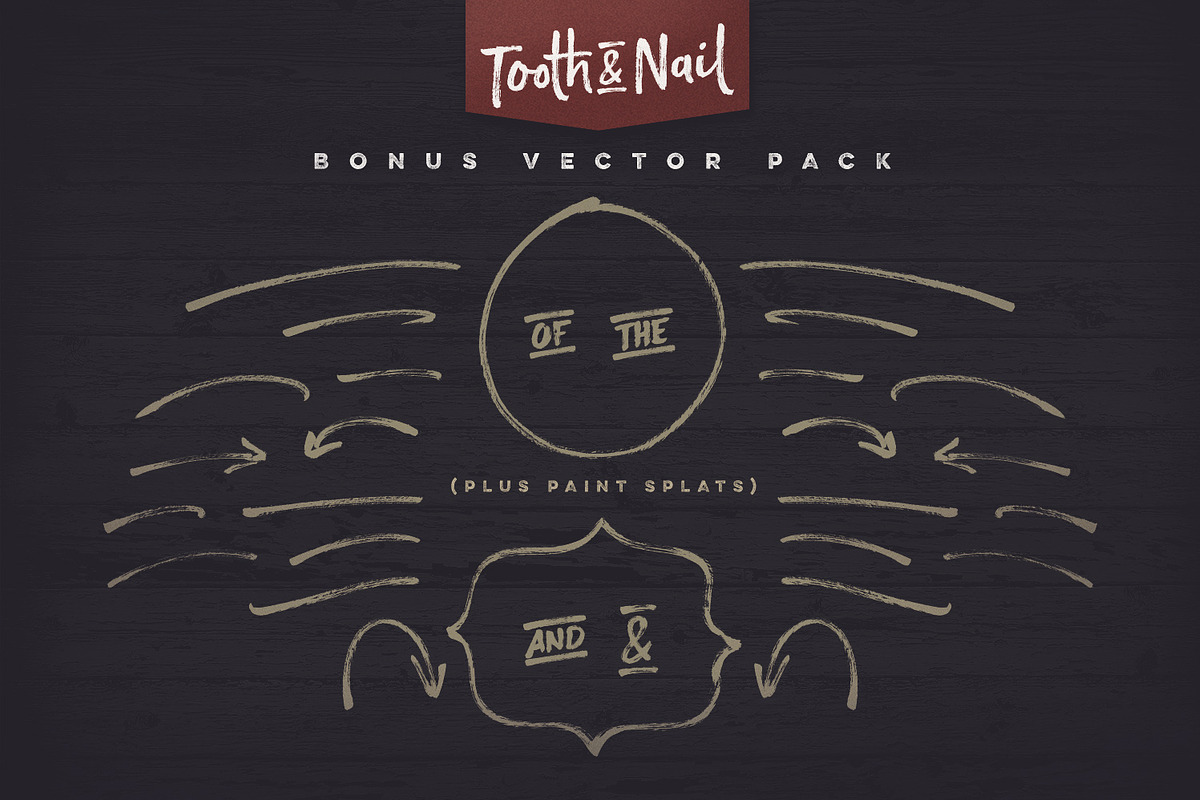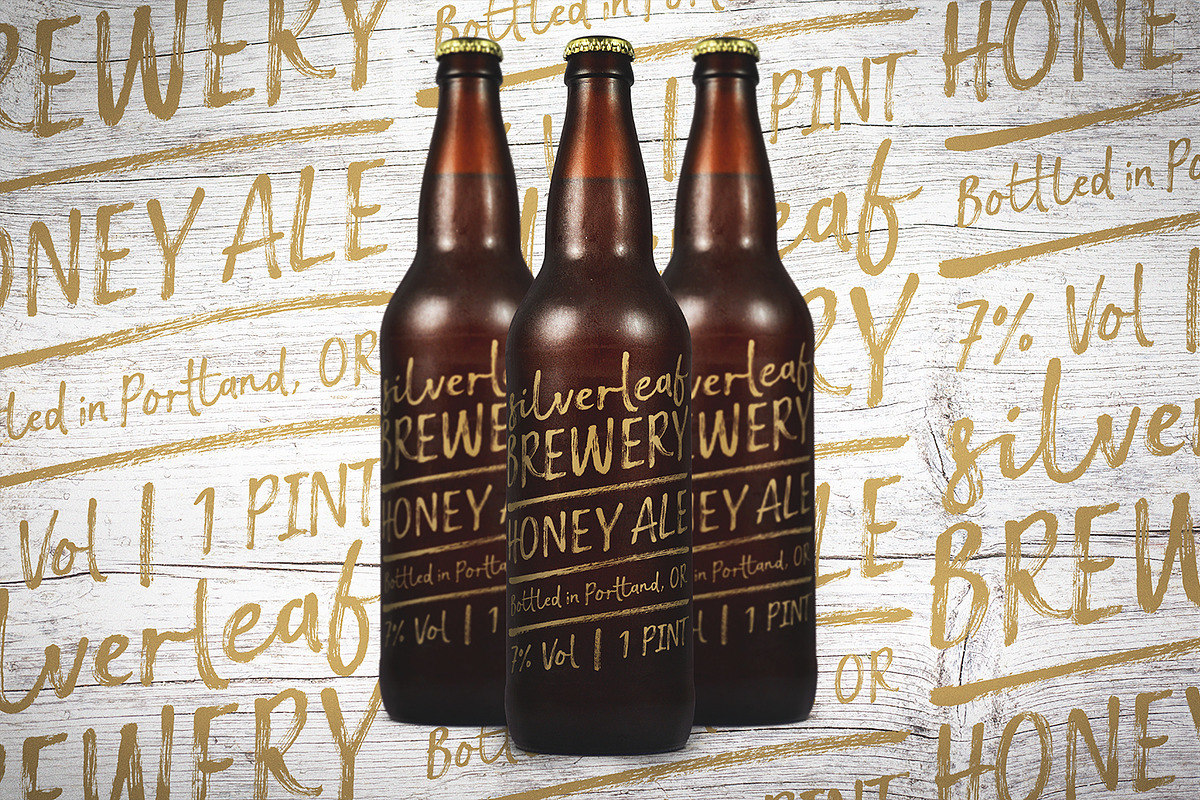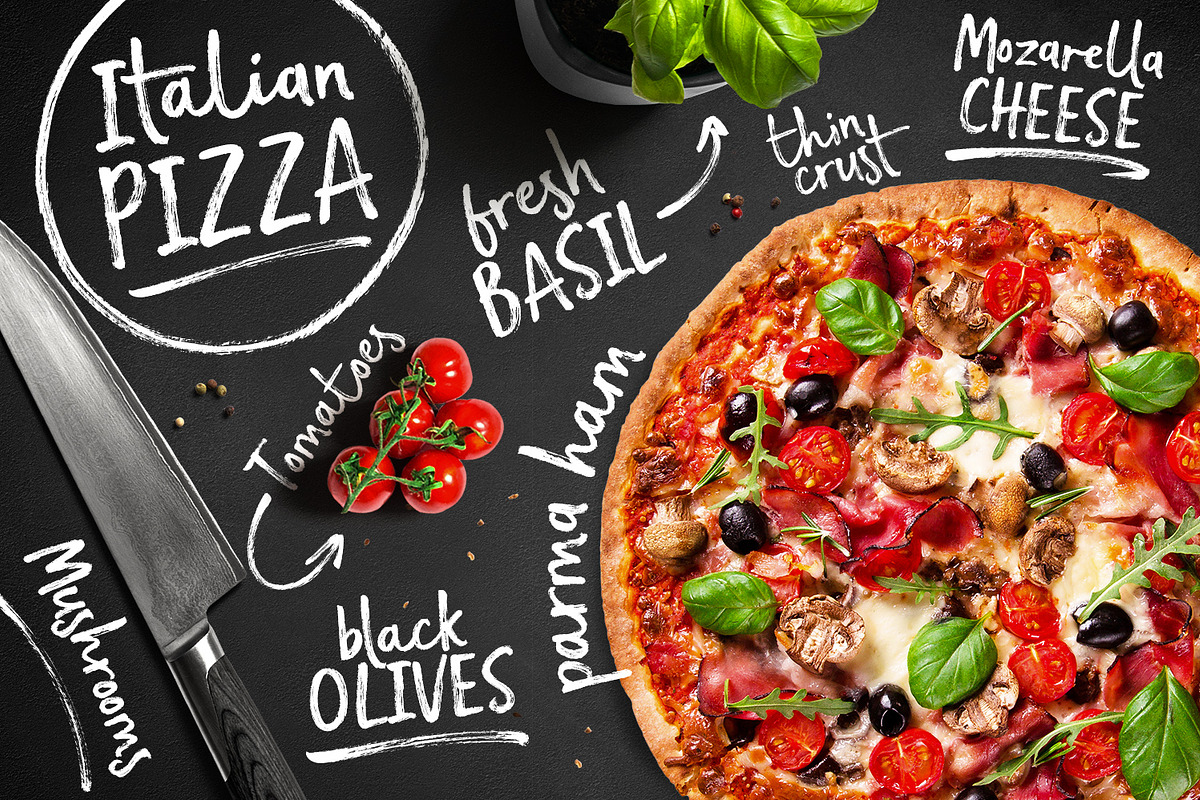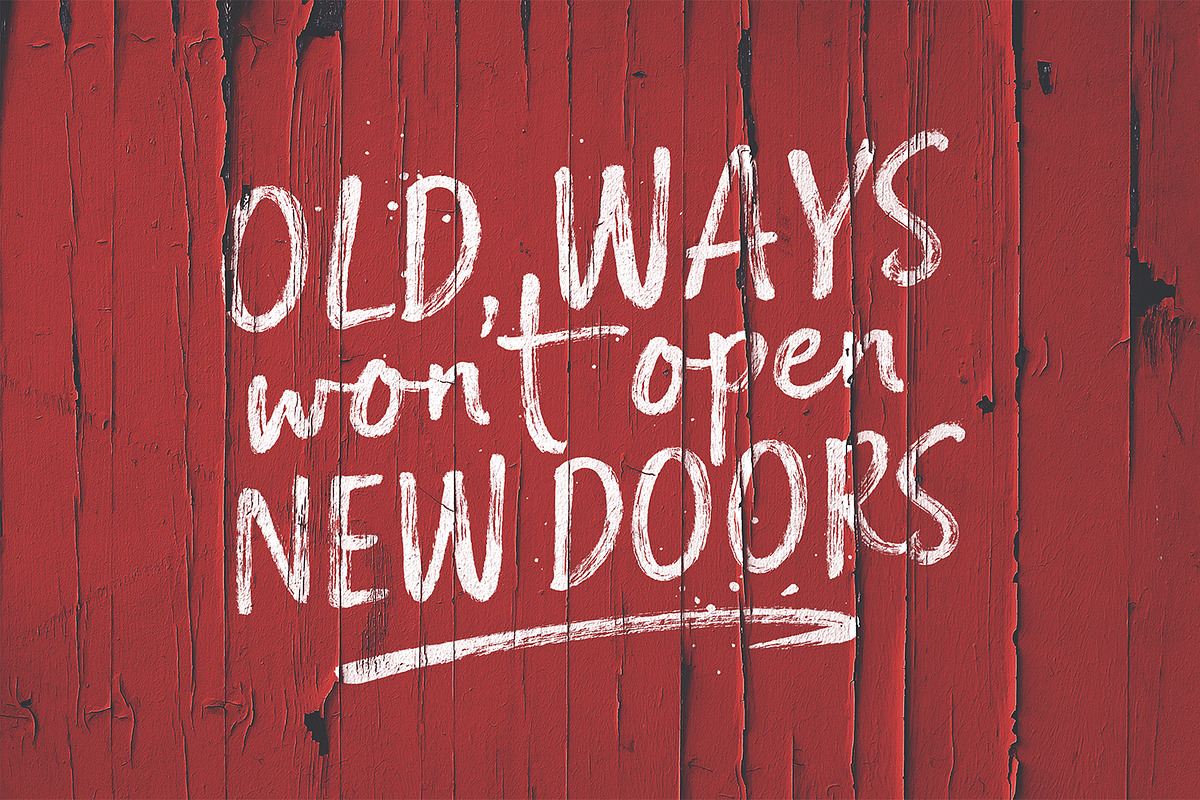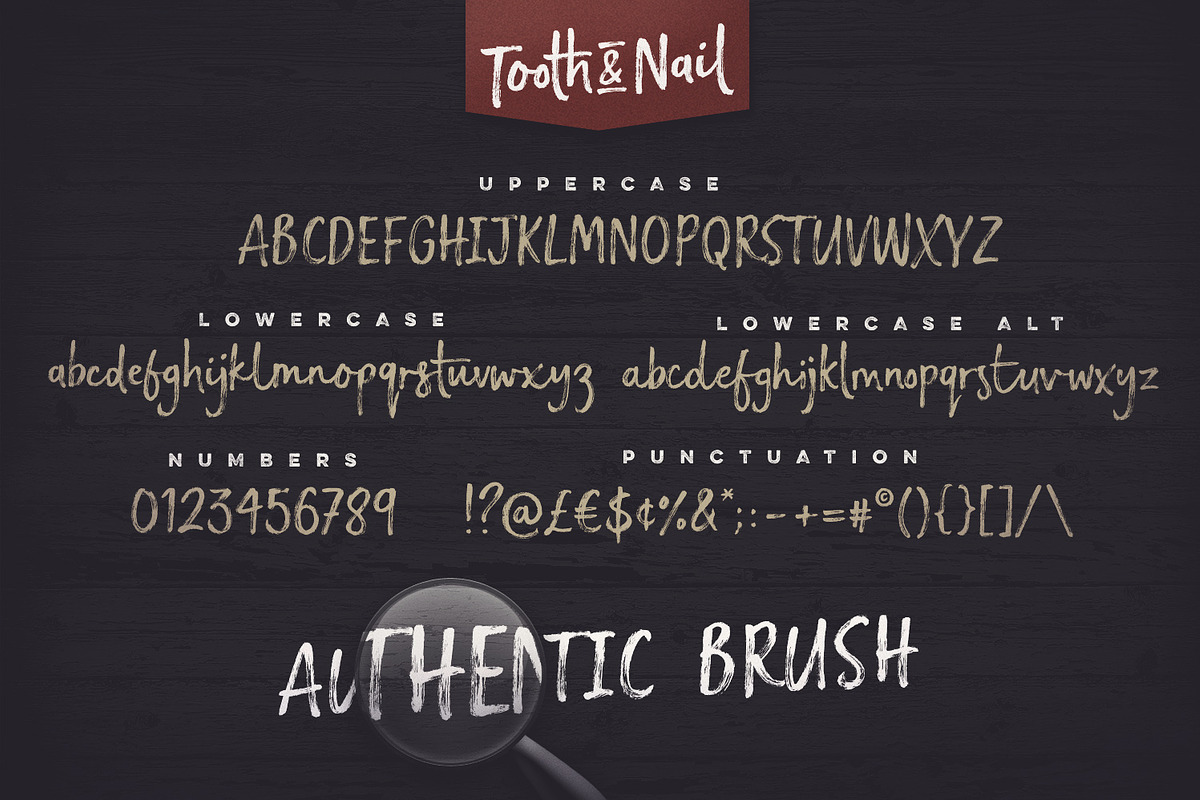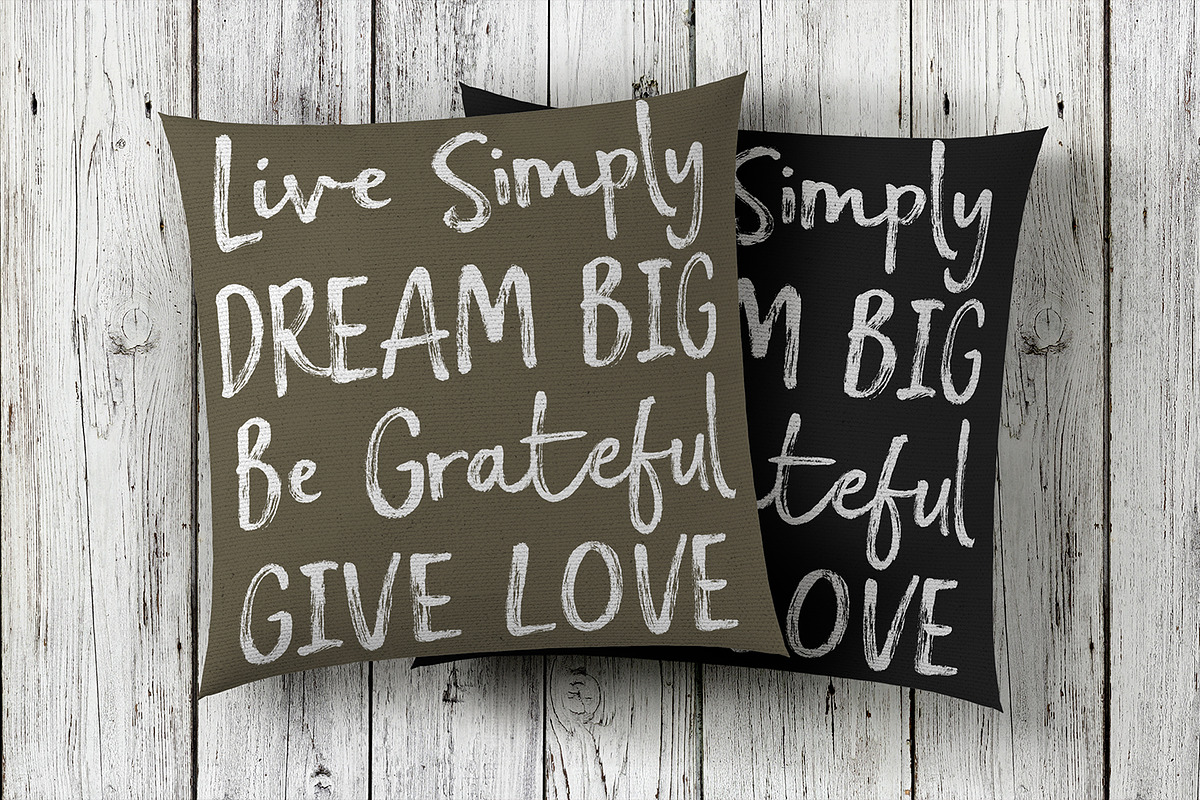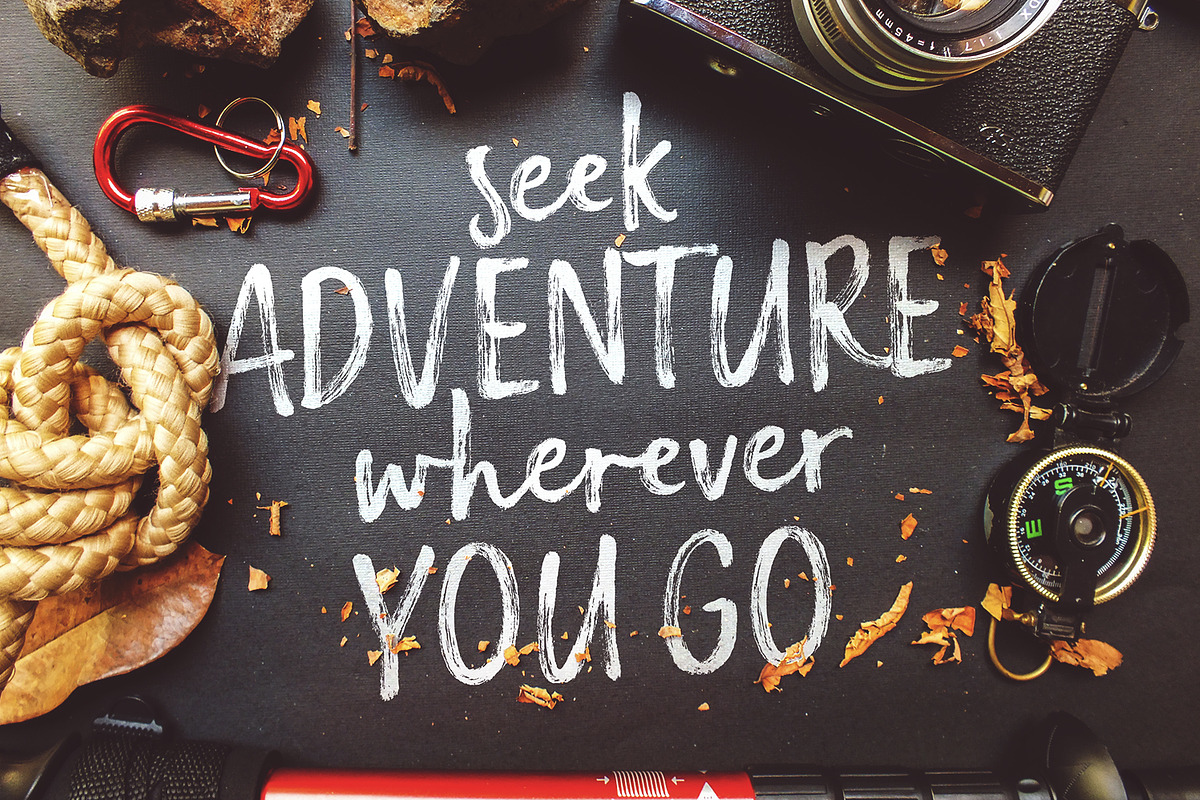
Tooth & Nail Dry Brush Font
Tooth & Nail Dry Brush Font by Sam Parrett is a font selected for branding, posters, packaging, typography.
- It also includes a bonus vector pack, featuring 24 elements designed to boost your text and reaffirm it's hand-made style.
- Introducing Tooth & Nail; a rustic & hearty hand-painted dry brush font, designed to work in both all-caps as well as lowercase.
- Tooth & Nail • A handwritten brush font containing upper & lowercase characters, numerals and a large range of punctuation.
- Tooth & Nail Alt • This is a second version of Tooth & Nail, with a completely new set of lowercase characters.
Why Tooth & Nail Dry Brush Font is worth a look
Tooth & Nail Dry Brush Font by Sam Parrett fits naturally into Branding, posters, packaging, typography.